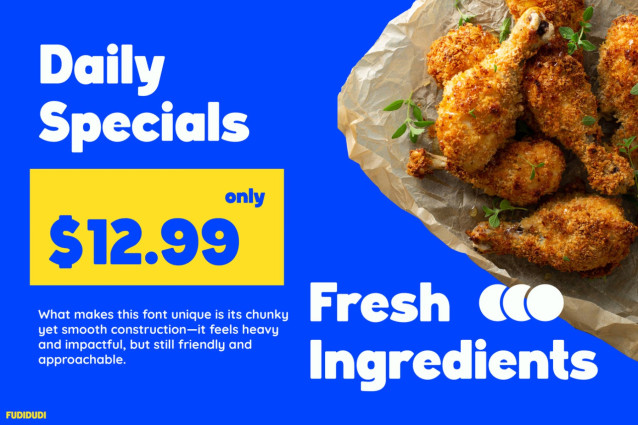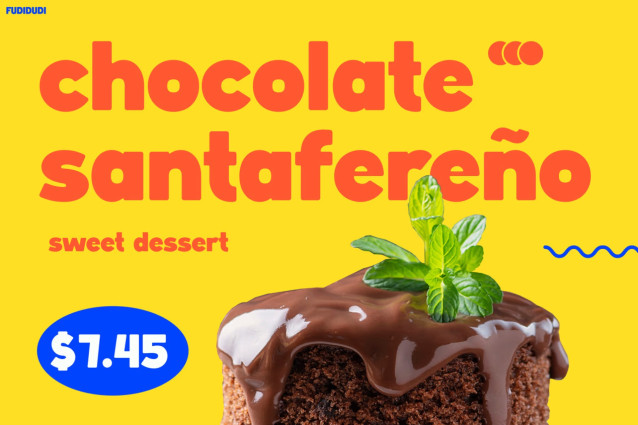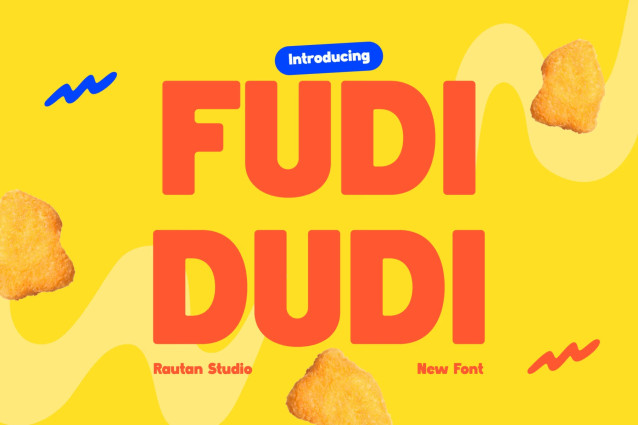
Fudidudi Font
Fudidudi Modern Font is a bold and vibrant typeface made to grab attention instantly. It features chunky shapes and playful curves that feel fresh and modern. Moreover, its strong letterforms create a fun yet clean look. As a result, your designs stand out without losing clarity. In addition, the smooth edges improve readability across many layouts. Not only that, it helps headlines pop with ease. With support for 67 languages, this font also reaches a wide global audience.
Fudidudi brings energy and flavor into every design. For example, it works perfectly for food promotions, menus, and packaging. Furthermore, it pairs well with bright colors and tasty visuals. Because of this, your layouts feel lively and eye-catching. In addition, the font boosts visual appeal and brand identity. It also makes content feel more engaging and fun. At the same time, it keeps text easy to read. Therefore, it is ideal for headlines, product names, and banners.